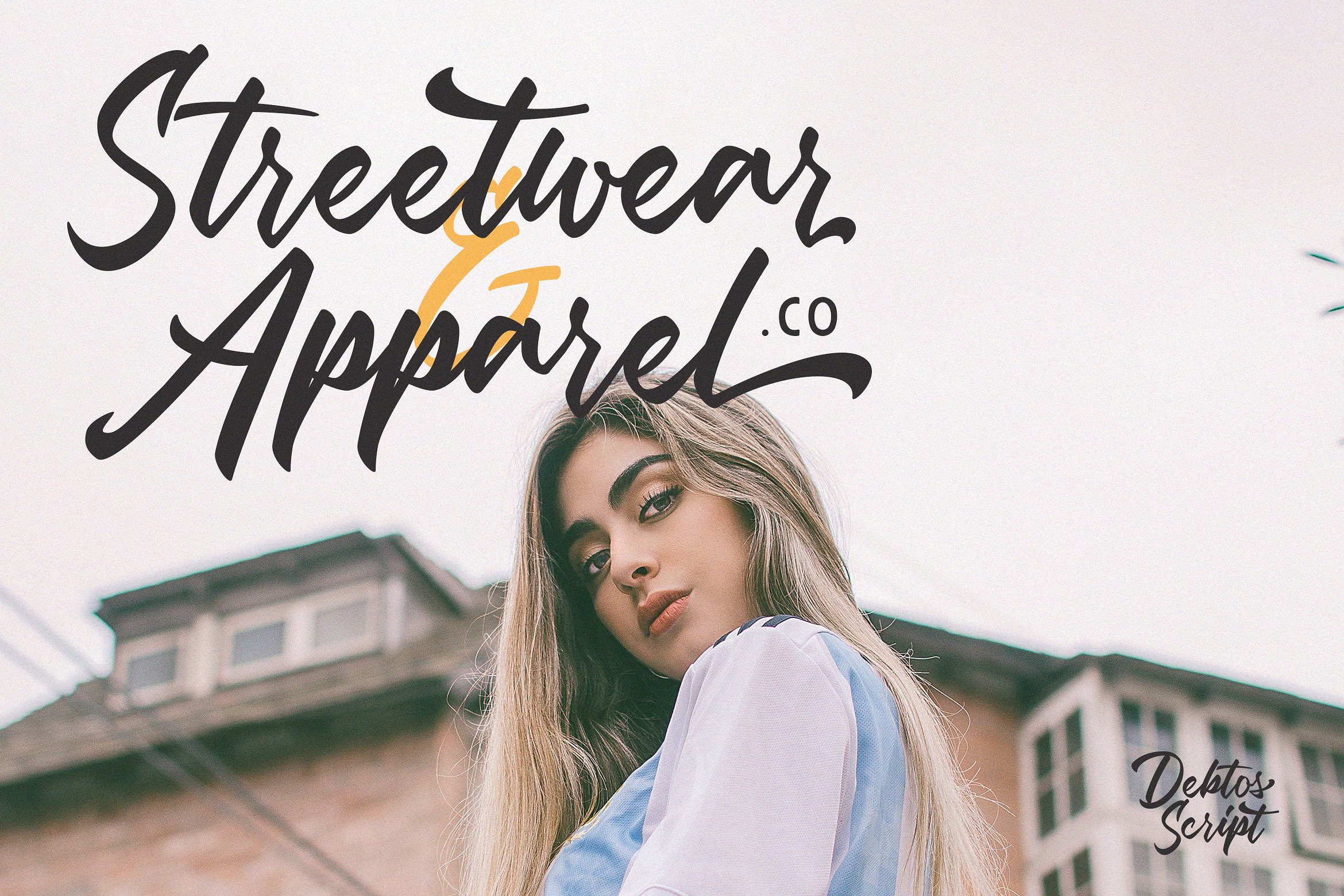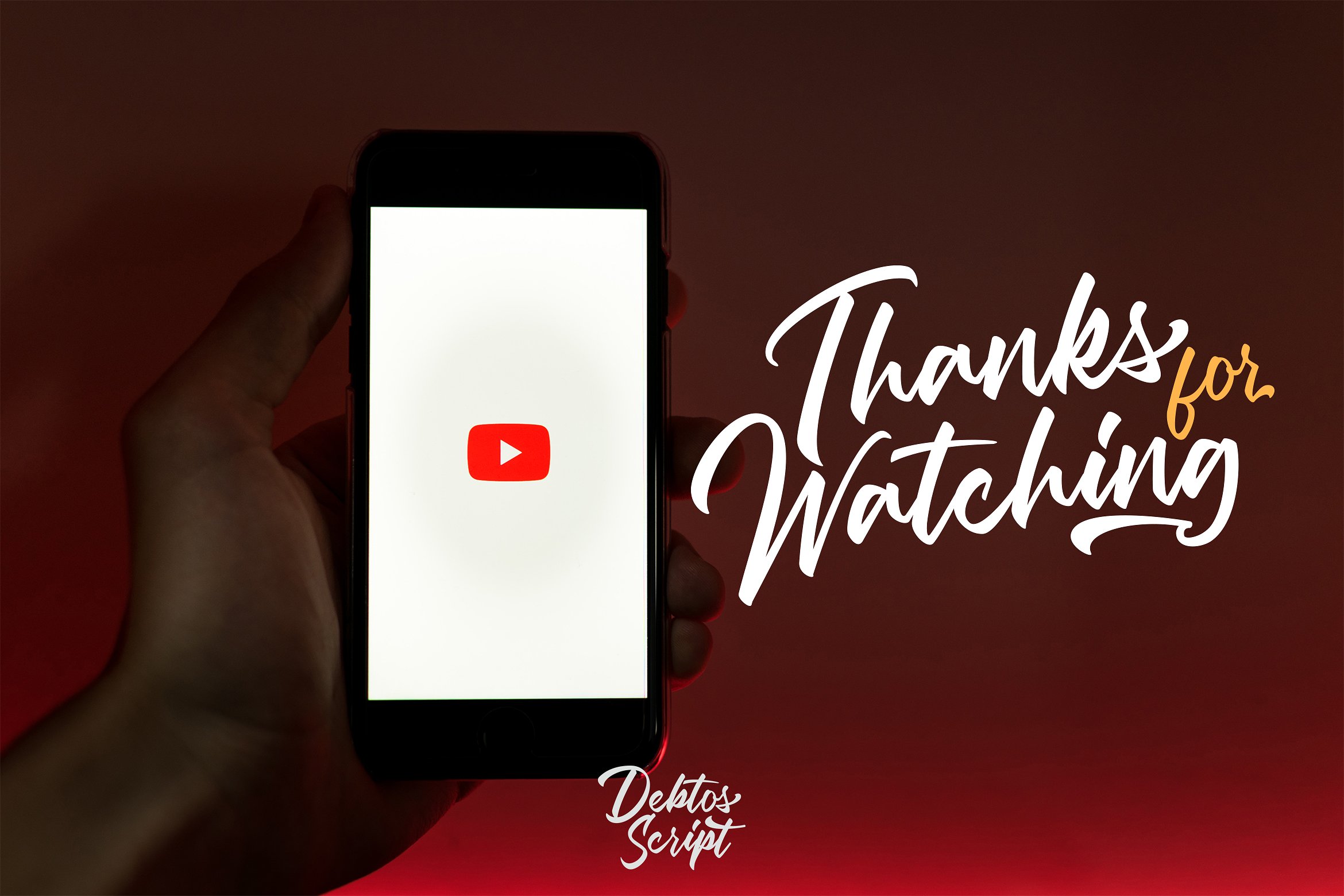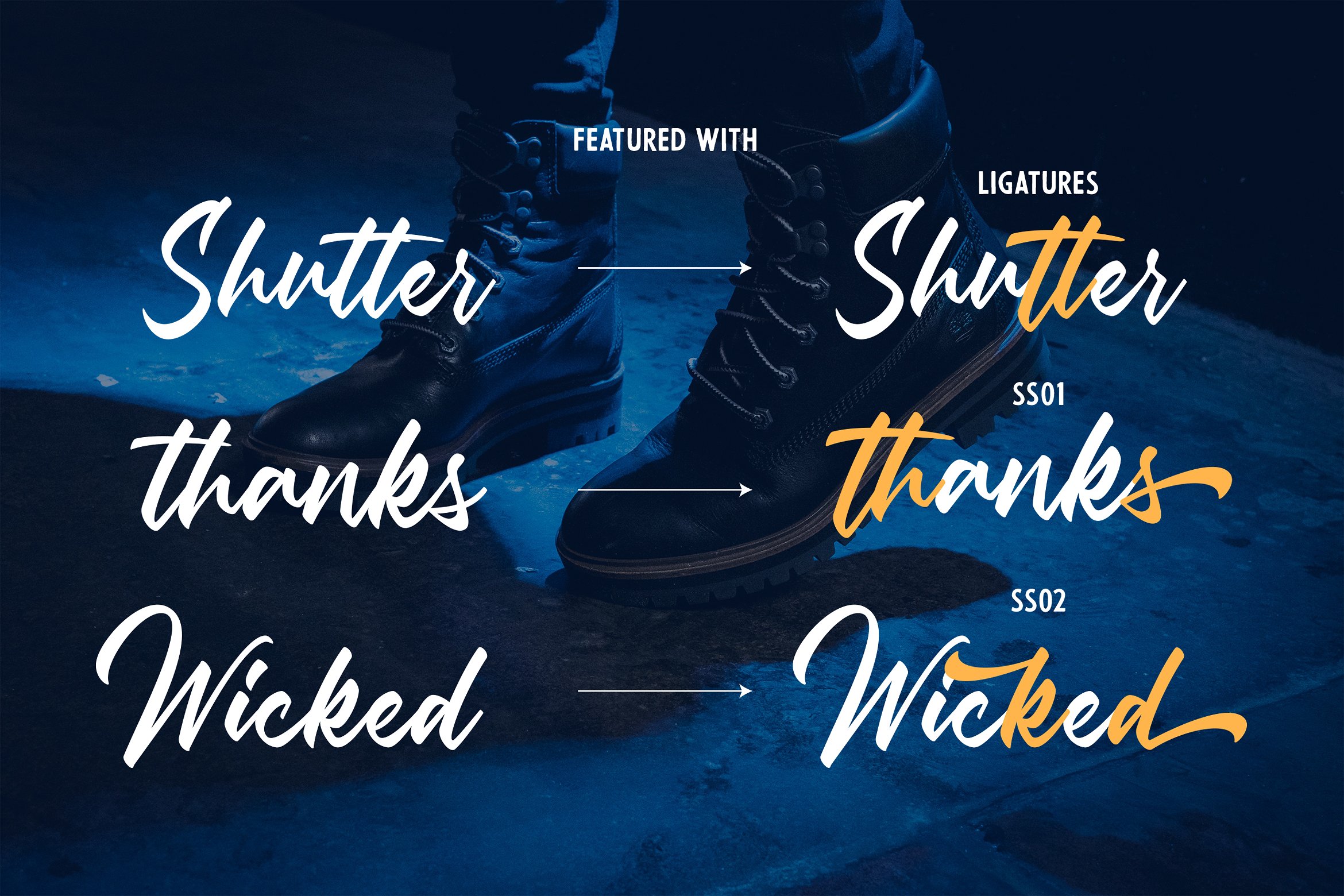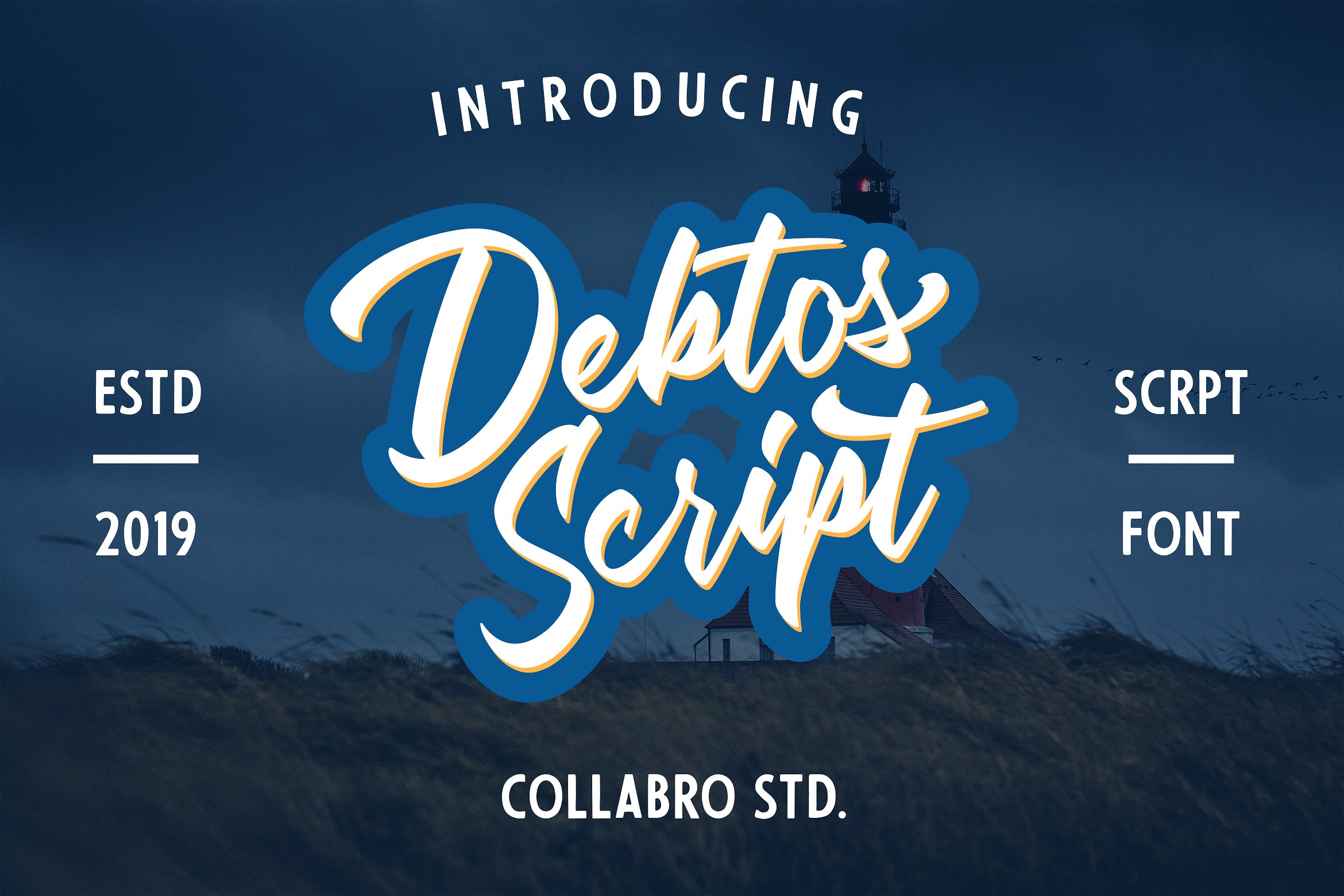
Debtos Script Font
Hello Guys! A playful monoline font, this is a fashionable sophisticated playful monoline style script with its own unique curves and an elegant inky flow. Debtos Script Font is a font display is made by hand, inspired by classic posters. comes with uppercase, lowercase, numerals, punctuations and so many variations on each characters include opentype alternates, common ligatures and also additional swash to let you customise your designs. Perfect to use for Logotype, Letterhead, Poster, Apparel Design, Label and etc.